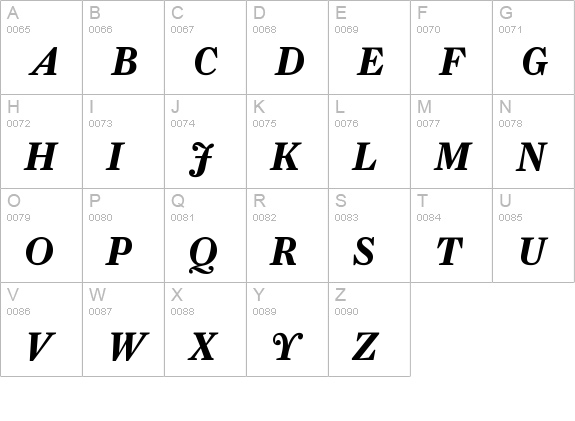
FarnhamDisplay-BoldItal font is a bold and stylish typeface that exudes sophistication and elegance. Its distinctive italicized design adds a touch of flair to any project, making it ideal for high-impact headlines, titles, and branding materials. The strong and commanding presence of this font makes it perfect for making a statement and capturing attention. What makes FarnhamDisplay-BoldItal font even more appealing is that it is available for free download at FontsMarket.com. This means you can easily access this premium-quality font without any cost, making it a valuable addition to your font collection. Whether you're working on a professional design project or simply looking to elevate your creative endeavors, FarnhamDisplay-BoldItal font is a versatile choice that will surely impress.